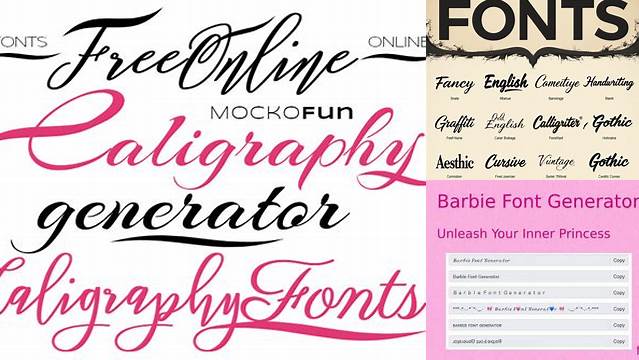
Free Script Font Generator: Copy & Paste
Hey guys, are you looking to add a touch of elegance, personality, or a bit of flair to your designs? Well, you've come to the right place! In this article, we'll dive deep into the world of script fonts, exploring how a script font generator can be your secret weapon, and how you can free copy and paste these beautiful fonts to make your projects stand out. We'll cover everything from understanding what script fonts are, how to use a script font generator, and where you can find these gems without spending a dime. Get ready to transform your text into stunning visual art! This comprehensive guide is designed to make it super easy for you to get started, even if you're a complete beginner. Let's get started!
What Exactly Are Script Fonts?
Alright, first things first: what exactly are script fonts? Think of them as the cool, stylish cousins of the font family. Script fonts are designed to mimic handwriting, often featuring flowing, connected letterforms that give off a sense of elegance, sophistication, or even a casual, handwritten vibe. They're all about adding that personal touch, that human element, that just makes your design pop. They range from formal, calligraphic styles, perfect for wedding invitations or certificates, to more playful and informal styles that would be great for a fun poster or social media graphic. When you choose a script font, you’re not just picking letters; you’re setting a tone, a mood, and creating a whole visual experience! The beauty of script fonts lies in their versatility. They can be used in a variety of design applications, from branding and logo design to web design and print materials. They're perfect for creating a sense of luxury, adding a touch of personality, or simply making your text more visually appealing. Now, imagine your design with the perfect script font. You’ll instantly grab attention, convey your message, and leave a lasting impression! The possibilities are endless when you tap into the world of script fonts! Plus, the visual appeal is high. The letterforms are designed to be easy to read and visually engaging. The elegance and style make them ideal for everything from headlines to body text.
Types of Script Fonts
There's a whole spectrum of script fonts out there, each with its unique personality. Let’s break down some of the most popular categories so you know what fits your needs:
- Formal Script Fonts: These are your classic, elegant choices, reminiscent of traditional calligraphy. Think of wedding invitations, diplomas, and anything that needs a touch of sophistication. They often feature connected letters and intricate flourishes.
- Brush Script Fonts: As the name suggests, these fonts imitate the look of handwriting created with a brush. They tend to be more casual and expressive, often with a slight roughness or texture that gives them a more organic feel.
- Casual Script Fonts: These are relaxed and approachable, perfect for informal projects. They can have a more modern or playful feel, great for social media graphics, posters, or anything that needs a friendly vibe.
- Handwritten Script Fonts: These fonts aim to replicate the look of actual handwriting. They're great for adding a personal touch, making your designs feel more authentic and human.
Understanding these different types will help you choose the perfect script font for your next project. Each one has its own unique style and character, so take some time to explore them and find the perfect fit for your needs. Don't be afraid to experiment and try different fonts until you find one that matches your vision. The right script font can make a huge difference in the overall impact of your design, so it's worth taking the time to find the perfect match!
How a Script Font Generator Works
Now, let's get into the fun part: how to use a script font generator! The basic idea is super simple, but the results can be amazing. A script font generator is basically a tool that allows you to preview and sometimes even customize script fonts, so you can see exactly how your text will look. It's your secret weapon for finding the perfect font for your project!
Key Features of a Script Font Generator
When choosing a script font generator, look for these key features to make sure it meets your needs:
- Font Preview: This is the most important feature! The generator should allow you to type in your text and instantly see it displayed in various script fonts. This lets you quickly compare and choose the best option.
- Font Selection: The best generators offer a wide variety of script fonts. The more options, the better your chances of finding the perfect fit for your project. Variety is the spice of life, and the spice of design!
- Customization Options: Some generators let you customize the font size, color, and even spacing between letters. This allows you to fine-tune your design and make it truly unique.
- Copy and Paste Functionality: This is crucial. The generator should allow you to easily copy and paste your text into your design software or wherever you need it. This should be a seamless process.
- User-Friendly Interface: A clean, easy-to-use interface is essential. You don’t want to waste time wrestling with a complicated tool. The generator should be intuitive and easy to navigate.
Step-by-Step Guide to Using a Script Font Generator
Using a script font generator is generally a breeze! Here’s a simple step-by-step guide to get you started:
- Find a Generator: Search online for